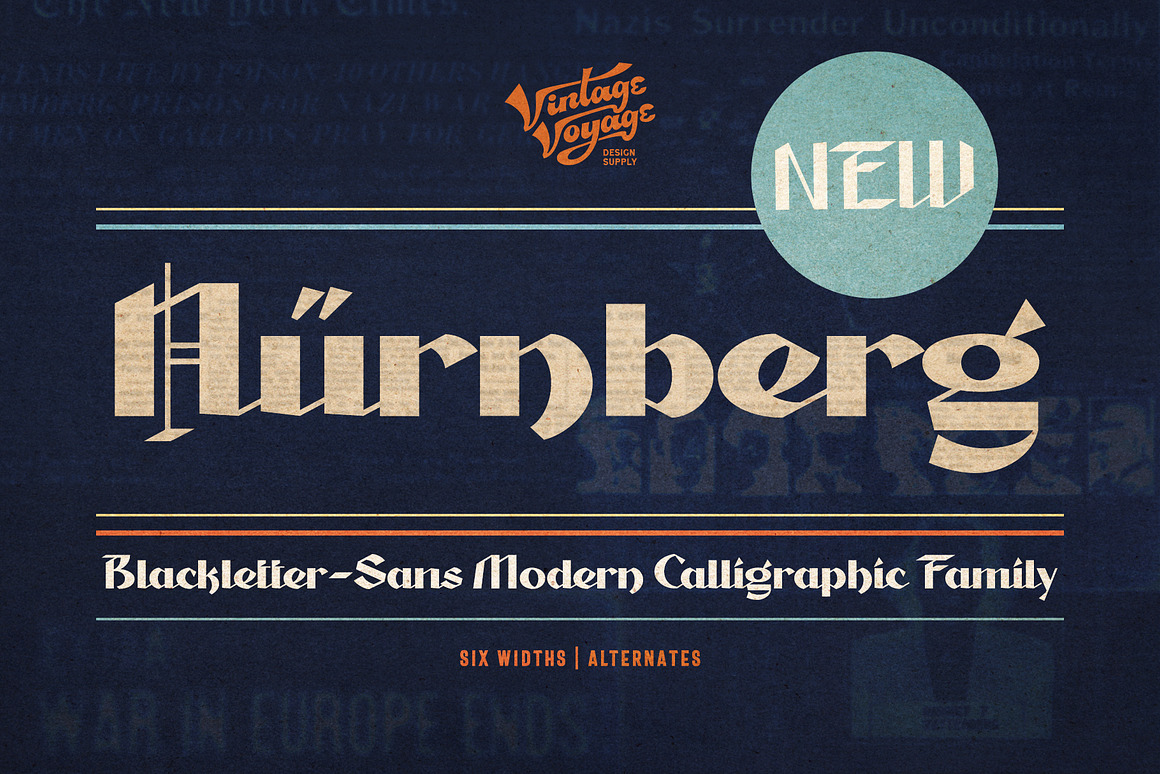
Nurnberg Font
Nurnberg Font is perfect for German brewery branding, European heritage museums, Gothic architecture documentation, medieval festival materials, historical society publications, traditional German restaurant menus, authentic beer hall signage, cultural preservation projects, European tourism campaigns, and heritage craft workshops. This distinctive typeface excels in applications where Germanic tradition, architectural history, and European cultural authenticity are fundamental design elements.
Nurnberg Font is exciting because it masterfully captures the architectural grandeur and cultural richness of medieval Germanic design through its bold, structural letterforms and traditional character details. Its robust construction features the distinctive angular elements and geometric precision that characterize Gothic and Germanic typographic traditions, while maintaining contemporary readability standards. The font's authoritative presence evokes the strength and permanence of medieval European architecture and cultural institutions.
The Nurnberg Font family includes Regular, Bold, Condensed, Outline, and Decorative variations, each featuring extensive Germanic design elements and traditional architectural motifs. The family includes authentic European character sets, historical ligatures, and decorative borders inspired by medieval manuscripts and Gothic stonework. Comprehensive language support covers German, Austrian, Swiss, and other Central European languages with historically accurate character representation.
Professional designers appreciate Nurnberg Font for its ability to convey European heritage, cultural authority, and architectural permanence. The font's commanding presence works exceptionally well in applications where historical authenticity and cultural gravitas are paramount. Its distinctive personality makes it perfect for institutions seeking to communicate tradition, cultural preservation, and connection to European architectural and typographic heritage.
The architectural strength of Nurnberg Font transforms brand communications with its Gothic sophistication and Germanic cultural authority. Its authentic historical appeal resonates with audiences seeking genuine European cultural connections and traditional craftsmanship while maintaining professional design standards for contemporary commercial applications.